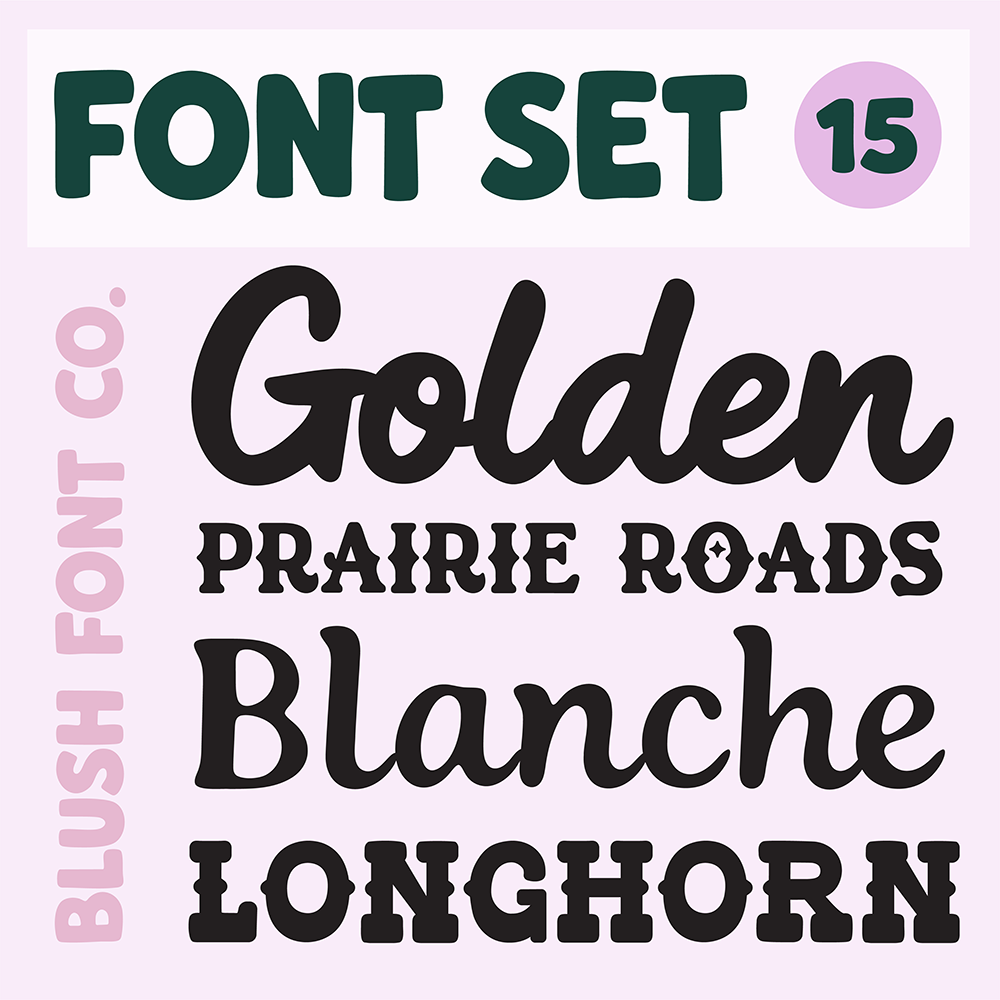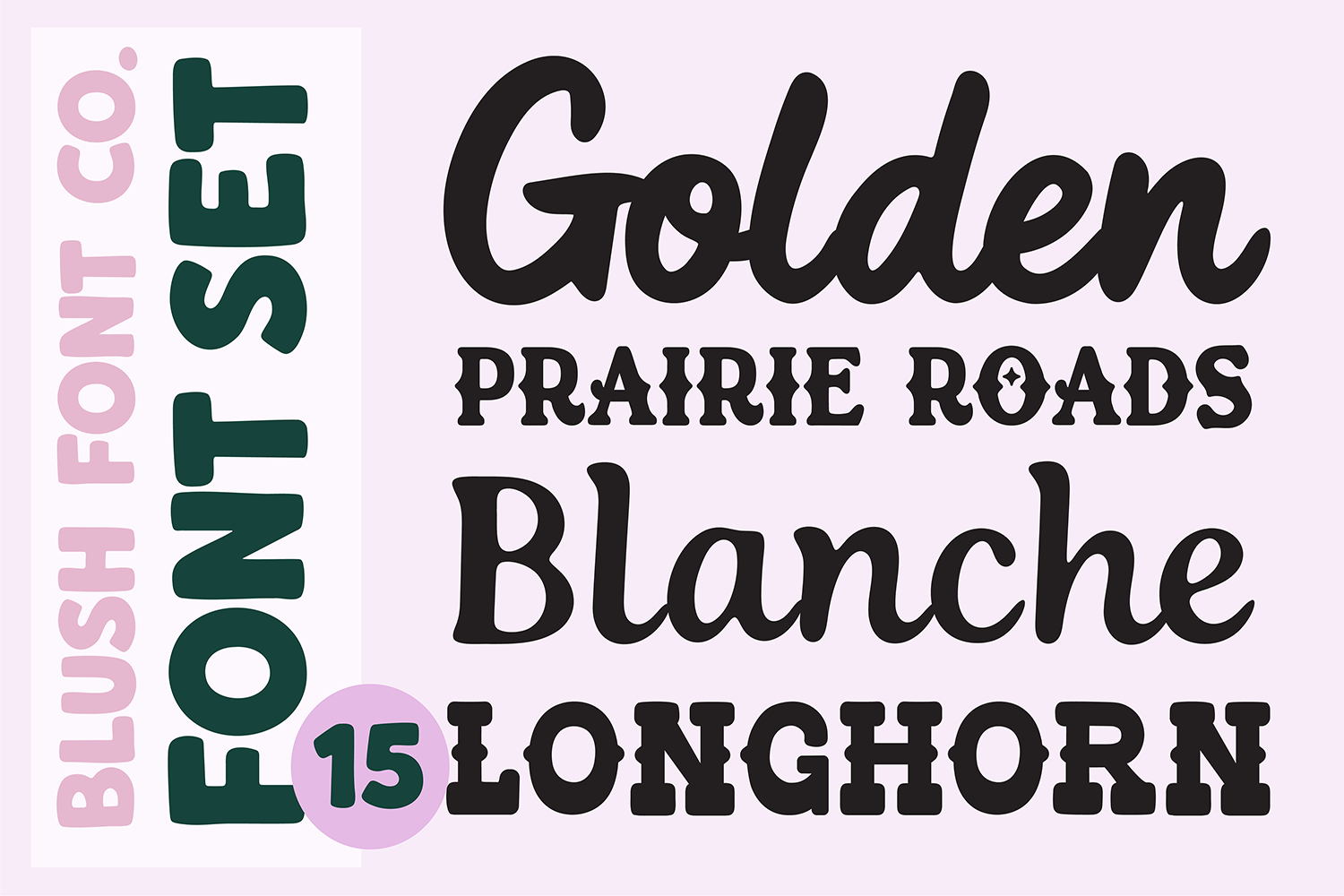
BFC FONT SET 15
Small bundle of my recent fonts! These are cute script and bold fonts. These will work perfect for Cricut projects.
Prairie Roads
Longhorn
Blanche
Golden Daylight